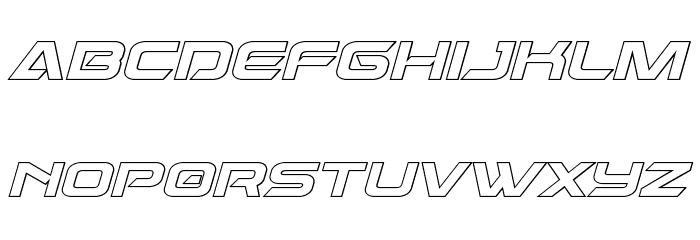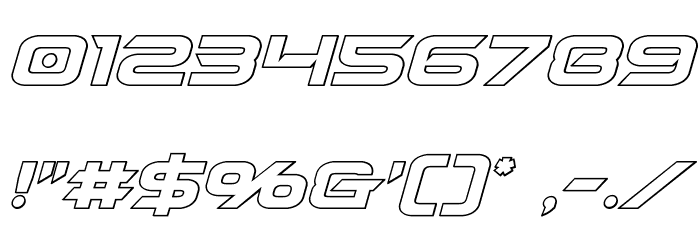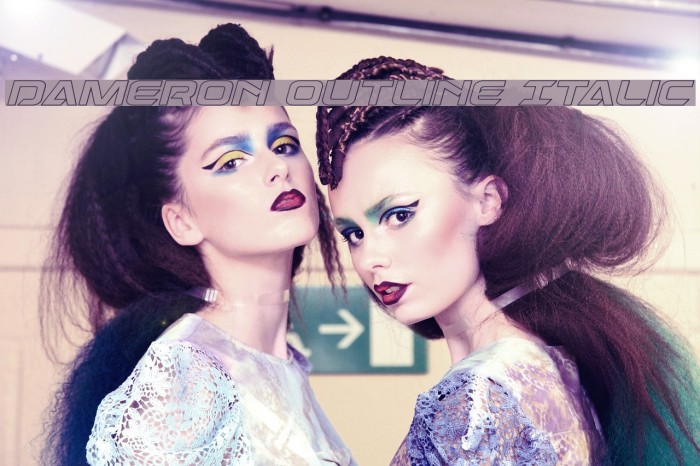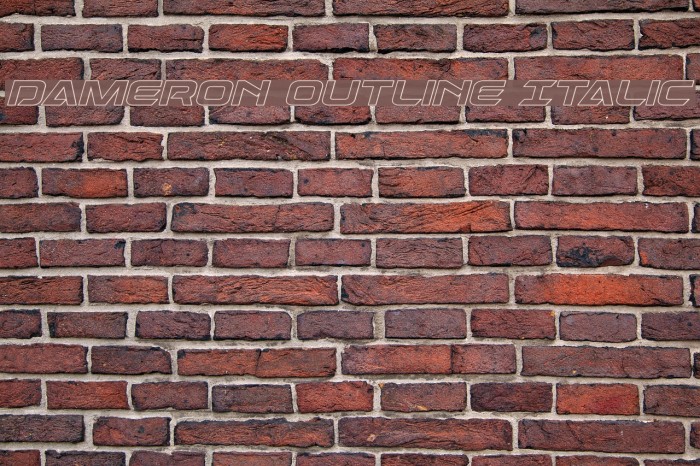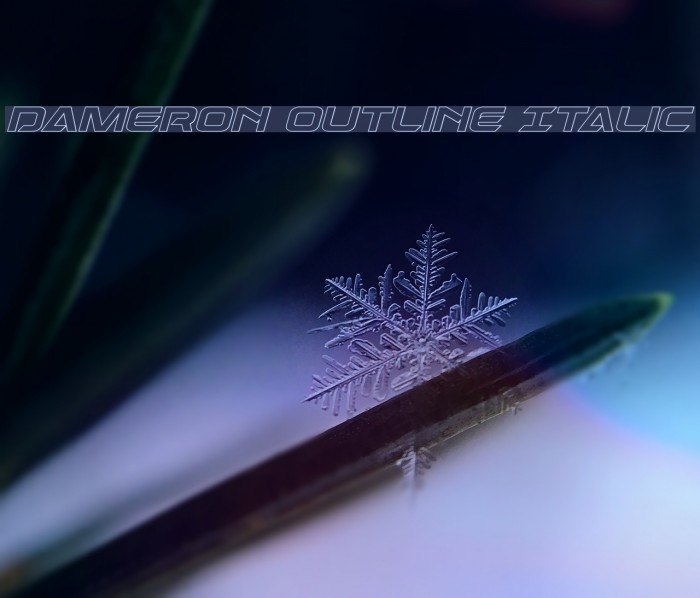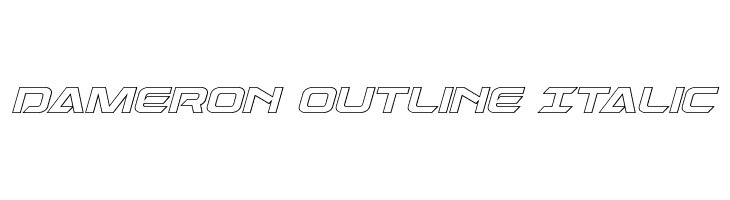
Dameron Outline Italic Font
This font features a sleek, modern outline style with a futuristic flair. The characters are italicized, giving a sense of motion and dynamism. The geometric shapes and sharp angles create a sense of precision and technology. The uppercase and lowercase letters maintain a consistent style, with uniform stroke widths that contribute to a clean and cohesive look. The numbers and special characters are designed to match the overall aesthetic, making this font versatile for various applications.
A modern, italicized outline font with a futuristic and dynamic style.